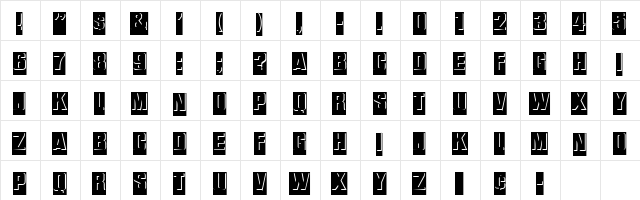
Ink Stamp 1 Regular
Design Context for Ink Stamp 1 Typeface
Ink Stamp 1 has the rough pragmatism of spray-painted stencil signage, adding a raw, street-level authenticity to designs.
Ideal for industrial branding, streetwear, military-adjacent aesthetics, and urban signage projects.
Pro Tip: Pair Ink Stamp 1 with raw, utilitarian design elements — exposed concrete textures, flat colour, and minimal ornamentation suit it well.